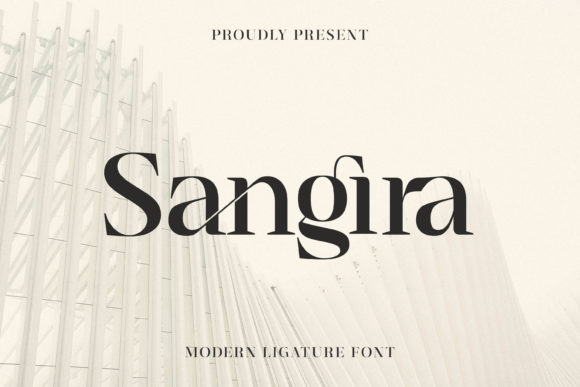
Introducing Sangira Font: The Epitome of Elegance and Boldness
Enter the realm of sophistication with Sangira Font, a captivating serif typeface that exudes timeless grace and unwavering boldness. Crafted with meticulous attention to detail by the renowned almarkhatype, Sangira is a visual symphony that harmonizes classic charm with modern appeal.
Step into a world where your creative visions take flight, where every letter dances across the page with an air of elegance and confidence. Sangira's beautifully crafted curves and sharp serifs command attention, making it the perfect choice for those seeking to leave an unforgettable impression.
Unleash your inner artist and explore the boundless possibilities that await you with Sangira Font. Its incredibly versatile nature allows you to effortlessly create a masterpiece, whether it's an enchanting wedding invitation that captures the essence of love, a stunning piece of stationary art that reflects your unique style, or captivating social media posts that demand attention.
With Sangira as your creative companion, you'll discover a world of design possibilities that were previously unimaginable. Its timeless beauty transcends trends, ensuring that your creations remain captivating and relevant for years to come.
Don't settle for ordinary fonts that blend into the background. Embrace the power of Sangira and let your words come alive with a touch of sophistication and boldness. Elevate your designs to new heights, leaving a lasting impression on your audience.
Immerse yourself in the world of Sangira Font and witness the transformation of your creative vision into stunning reality. Embrace the elegance, the boldness, and the versatility that await you within this remarkable typeface.